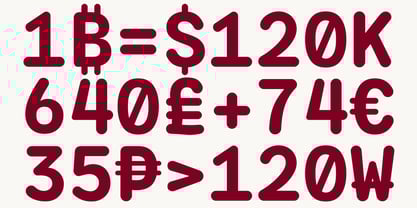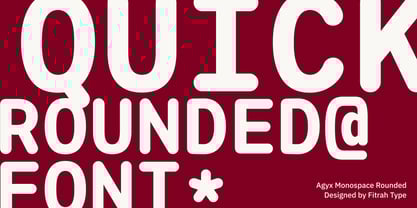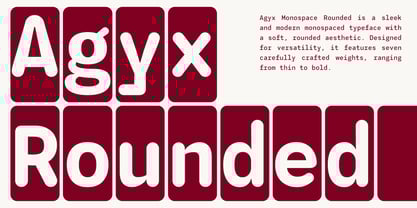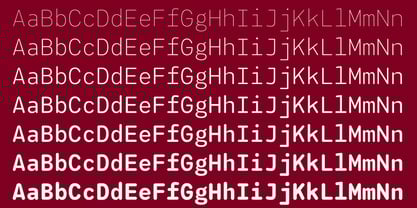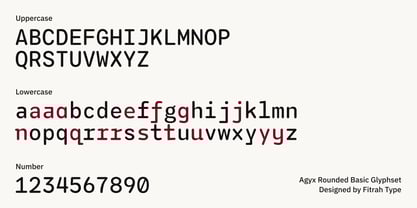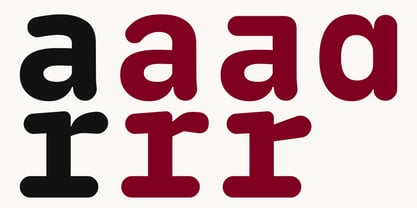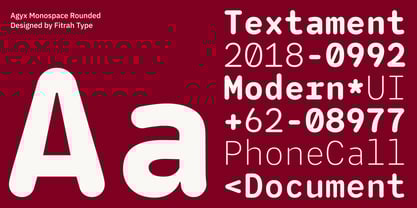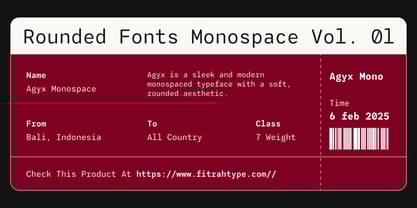
Agyx Mono Rounded
von Fitrah Type
Die Schriftfamilie Agyx Mono Rounded wurde von Moch Fitrah Hidayat entworfen und von Fitrah Type veröffentlicht. Agyx Mono Rounded enthält 7 Stile und Familienpaketoptionen.
Agyx Monospace Rounded is a sleek and modern monospaced typeface with a soft, rounded aesthetic. Designed for versatility, it features seven carefully crafted weights, ranging from thin to bold. With consistent spacing and carefully adjusted proportions, Agy Monospace Rounded ensures excellent readability across all seven weights. Whether used in digital applications or printed materials, its smooth curves and balanced letterforms provide a modern. The variety in weight selection allows for dynamic typographic compositions, offering flexibility for both functional and expressive designs.